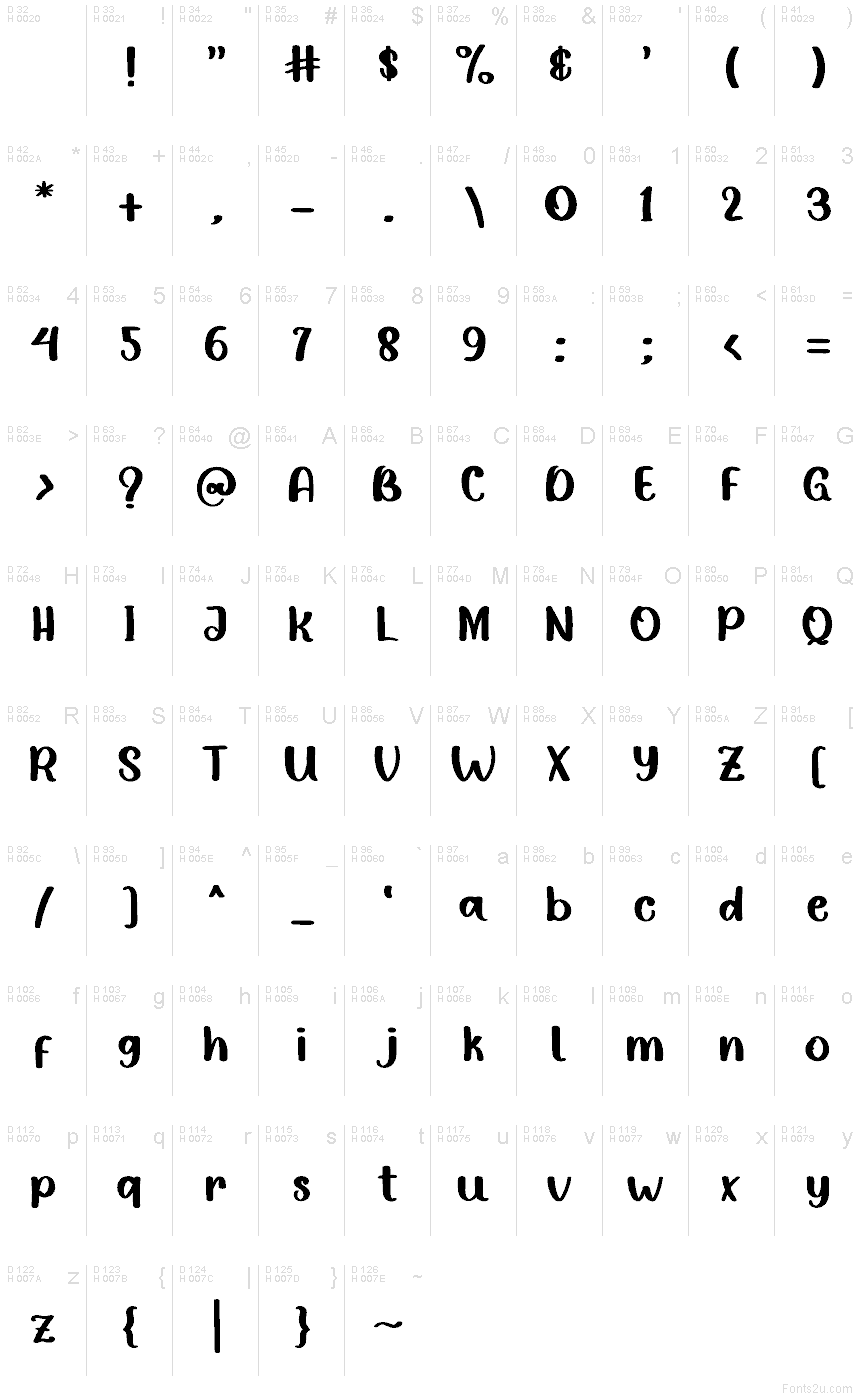
MERMAID
Mermaid font by One Design is a free brush font with an organic flow that is exceptionally nostalgic. It incorporates vintage, whimsical, and freeform serif touches with an artistic flair that will impress anyone looking at it. The curls and curves are quite appealing too.
Use Mermaid in homeware designs, printed materials like posters and flyers, stationery items, invitations, social media promotion graphics (ad banners, page covers), etc. It also works great for logos and product packaging of cosmetics or lifestyle-related brands.